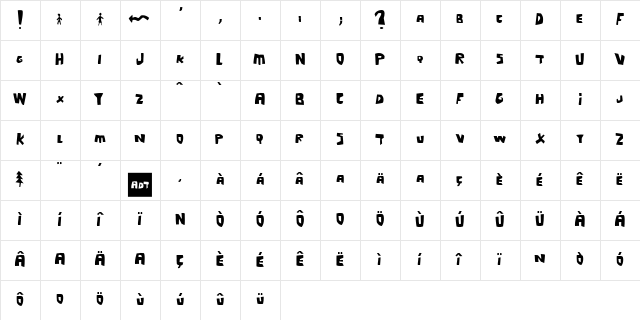
LInconnu Medium Font Preview
LInconnu Medium
Design Context for LInconnu Typeface
LInconnu is a composed and adaptable typeface that performs quietly and consistently across a wide range of design contexts.